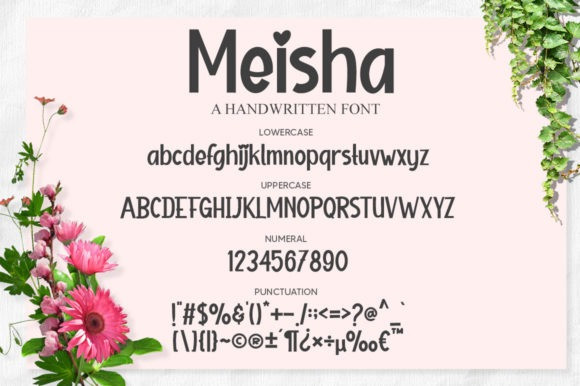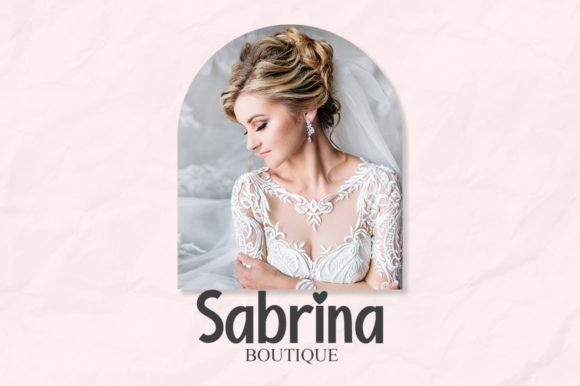
Meisha Font
Meisha Font is a simple and bold display font. It can be used for various purposes such as logos, headings, t-shirts, letterheads, signage, labels, news, posters, badges and so much more.